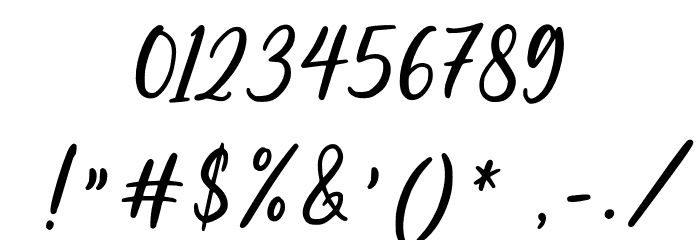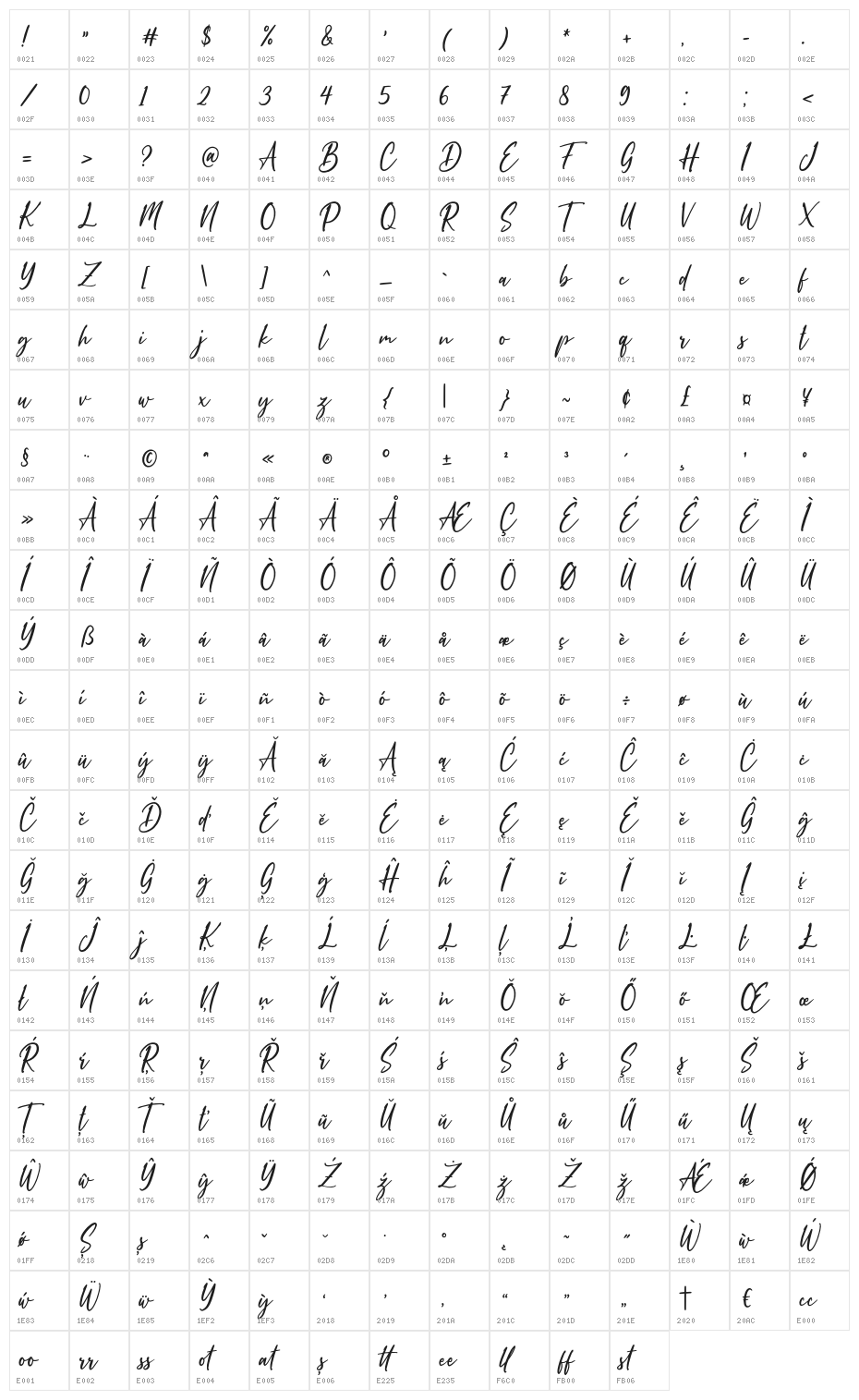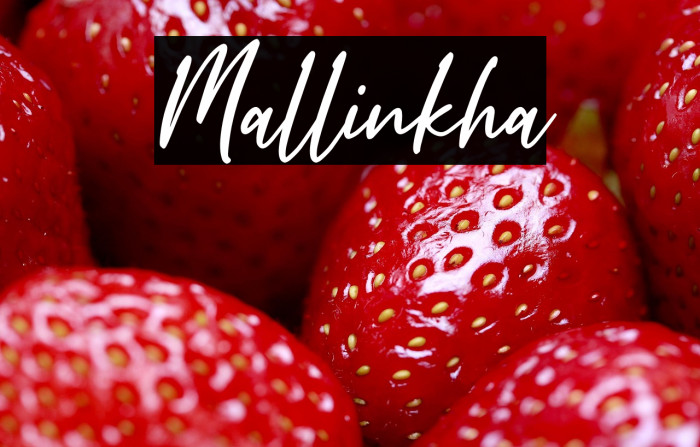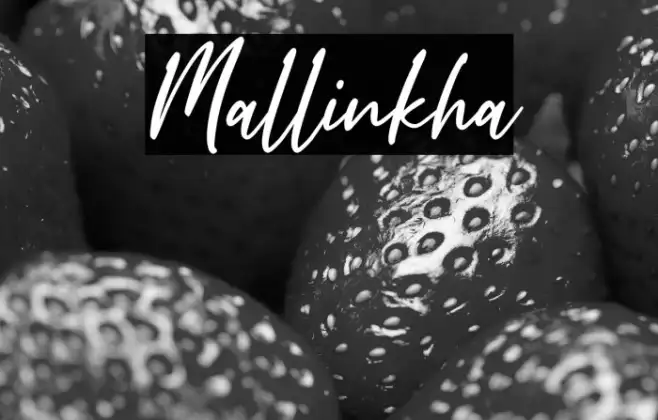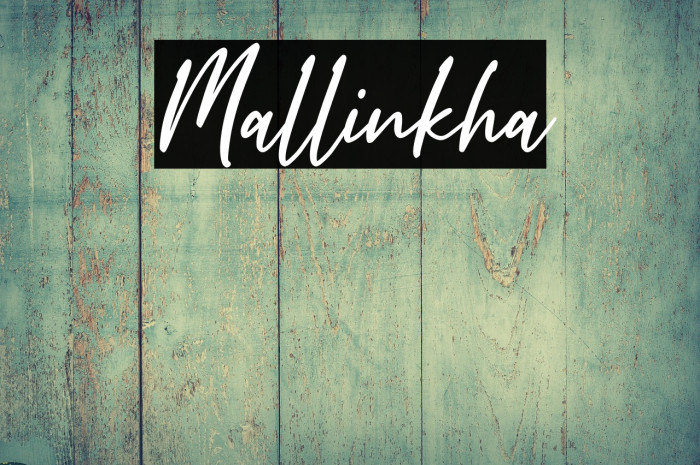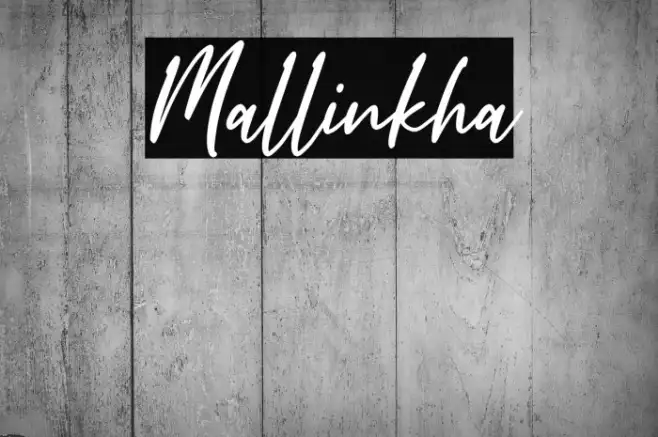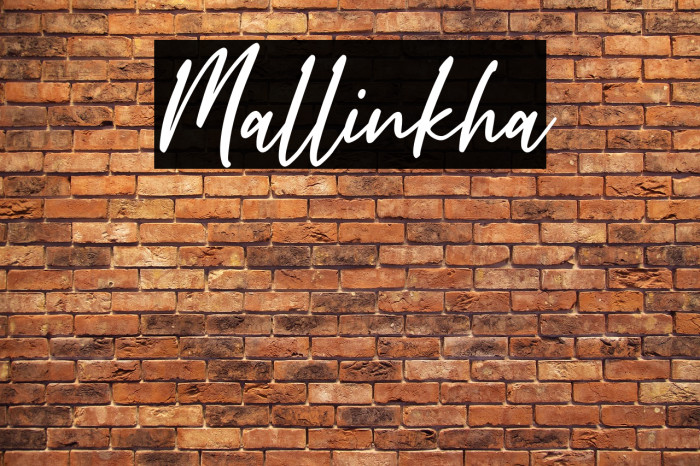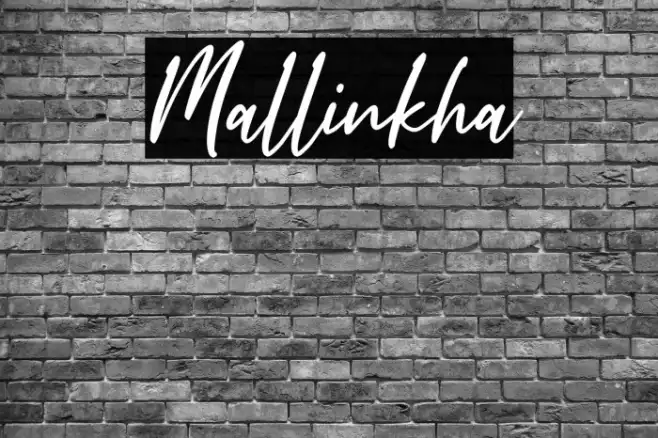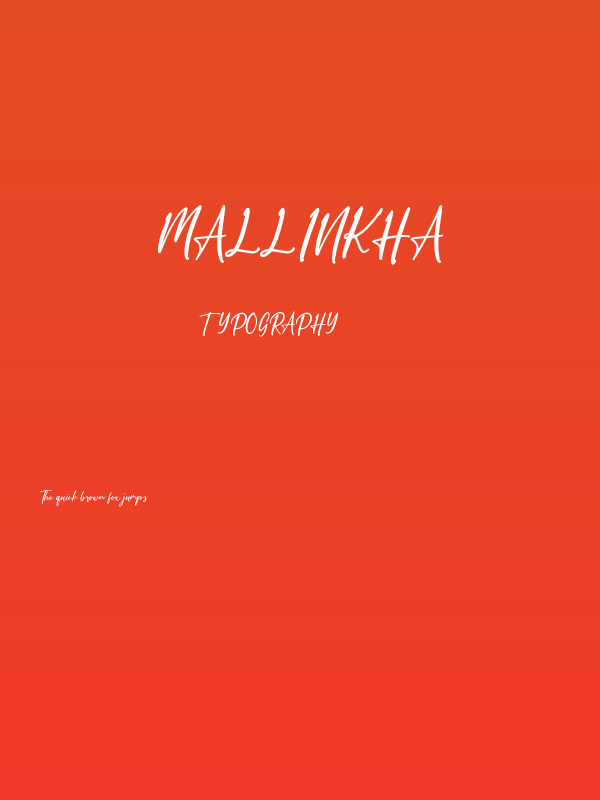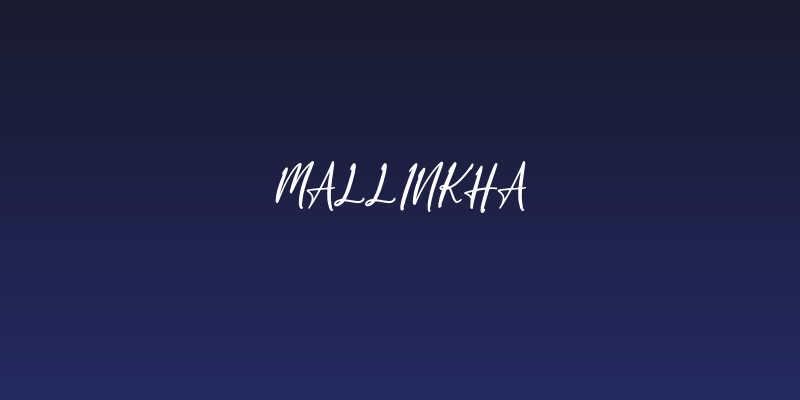
Mallinkha Font
Mallinkha Description
This font features an elegant and flowing script style, characterized by its smooth, cursive letterforms that mimic the fluidity of handwriting. The uppercase letters are slightly more embellished, with graceful loops and swashes that add a touch of sophistication. The lowercase letters maintain a consistent flow, making them highly legible while retaining a stylish flair. Numbers and special characters are designed to match the overall aesthetic, ensuring a cohesive look across all text. The font's natural, handwritten appearance makes it ideal for projects that require a personal or artistic touch.
Use CaseLogos, Invitations, Artistic projects
Proposed ProjectsIdeal for wedding invitations, greeting cards, personal branding, and artistic projects.